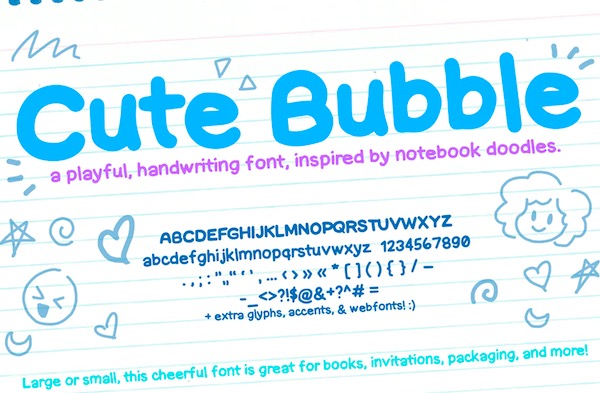
Cute Bubble is a cute & beautiful handwritten script font along with a fun, chunky flare! It includes lots of notebook or journal inspiration and could be a great choice if you’re looking for aesthetic fonts for hand-drawn or personal items.
Cute Bubble Handwritten Script Font